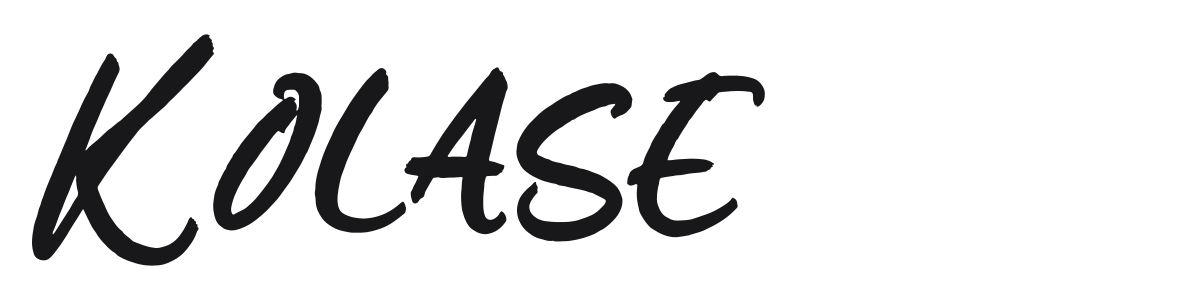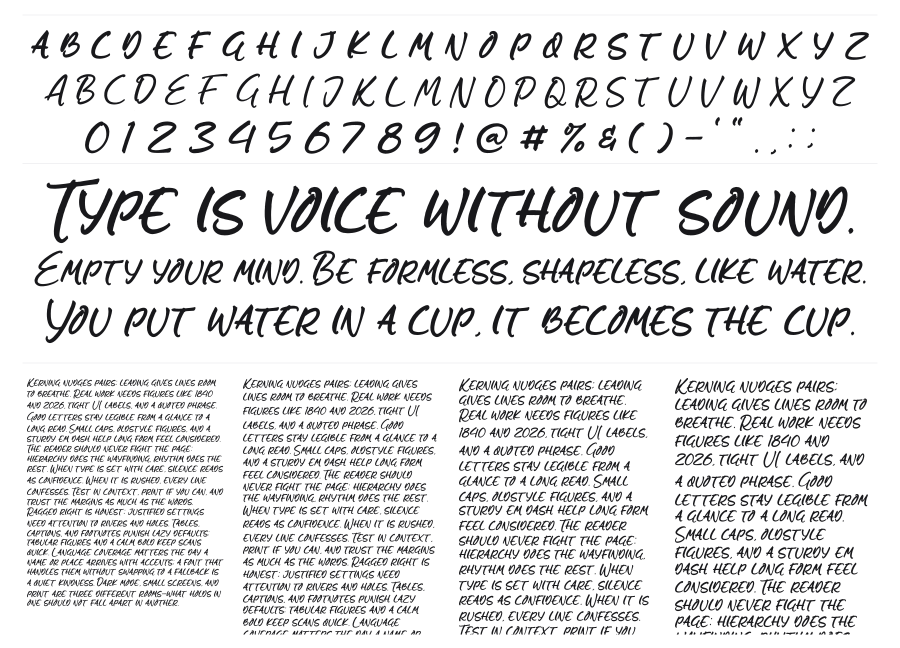
Kolase
Kolase is a bold brush script with a fast, spontaneous energy that reads like text written with a well-loaded wide brush. The rough terminals and natural stroke variation give it a genuine handmade quality without feeling labored. It hits hard on posters, packaging, and anywhere a brand needs a confident, casual voice.